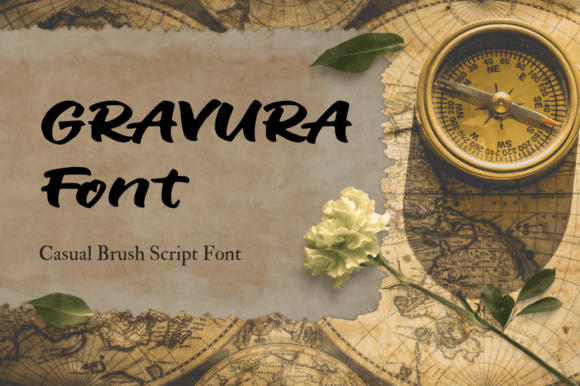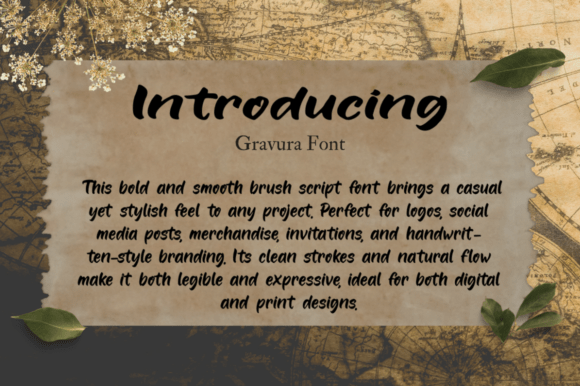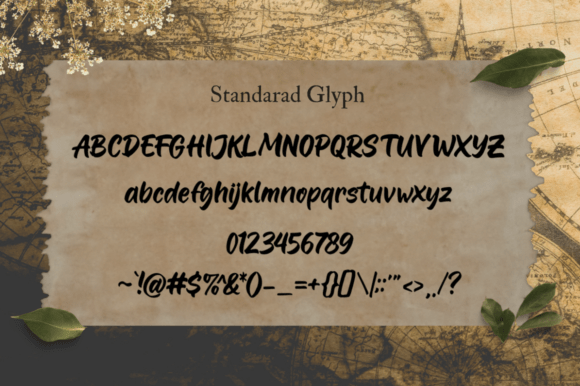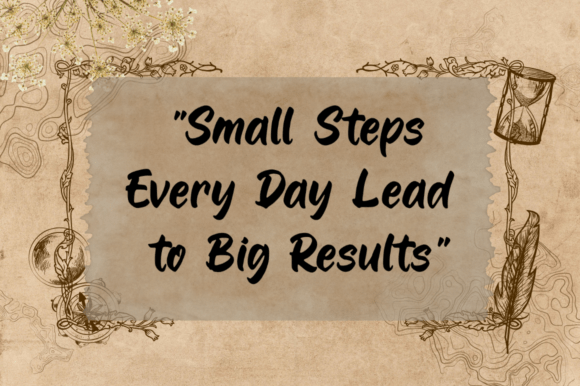
Gravura Font
About the Gravura Font
Introducing the Gravura Font, a beautifully crafted typeface designed to elevate your creative projects. Gravura is a bold and smooth brush script font that brings a casual yet stylish feel to any project. Perfect for logos, social media posts, merchandise, invitations, and handwritten-style branding. Its clean strokes and natural flow make it both legible and expressive, ideal for both digital and print designs.
Gravura excels in applications requiring a touch of casual elegance, such as logos, short headlines, and invitations. Its strength lies in its ability to convey a sense of handcrafted quality without sacrificing readability in moderate text sizes. However, its brush script nature makes it unsuitable for body copy or UI elements where prolonged reading is required.
Pairing Gravura with a clean sans-serif like Open Sans for body text provides a strong contrast and enhances readability. For a more playful feel, consider pairing it with a geometric sans-serif such as Montserrat. A classic serif like Garamond could create a sophisticated contrast if a more formal tone is needed.
Gravura’s overall personality is best described as confident and approachable, conveying a sense of both style and approachability. It’s ideally suited for brands aiming for a youthful yet sophisticated image, such as boutiques, lifestyle brands, or artisanal food companies.
Gravura Font Usage Examples
Gravura Font Example